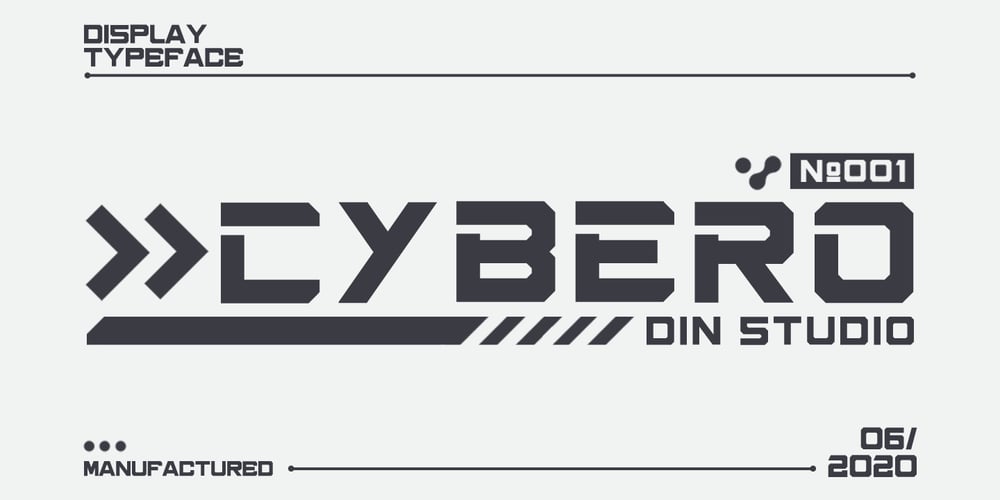
Cybero
Cybero font
Cybero Font Family was designed by Donis Miftahudin and published by Din Studio. Cybero contains 1 styles and family package options. Cybero is modern display font and is suitable for your any project like branding, clothing prints ad more. This font is PUA encoded and includes multi-lingual support.